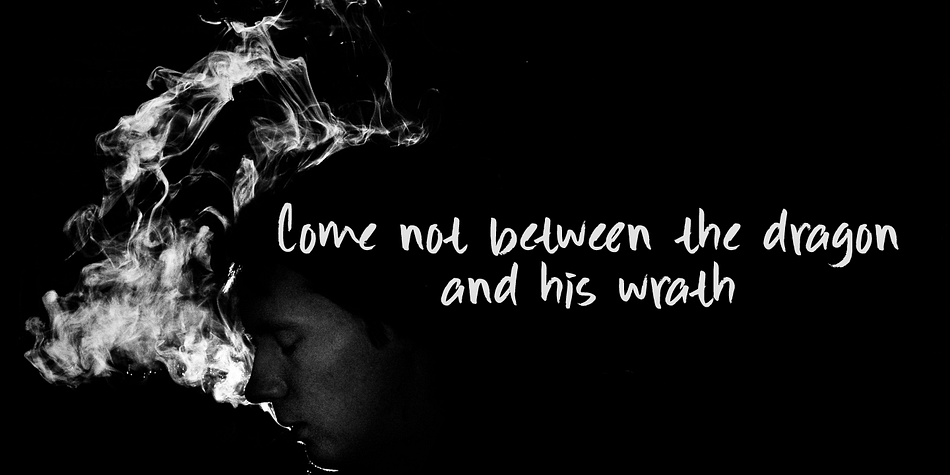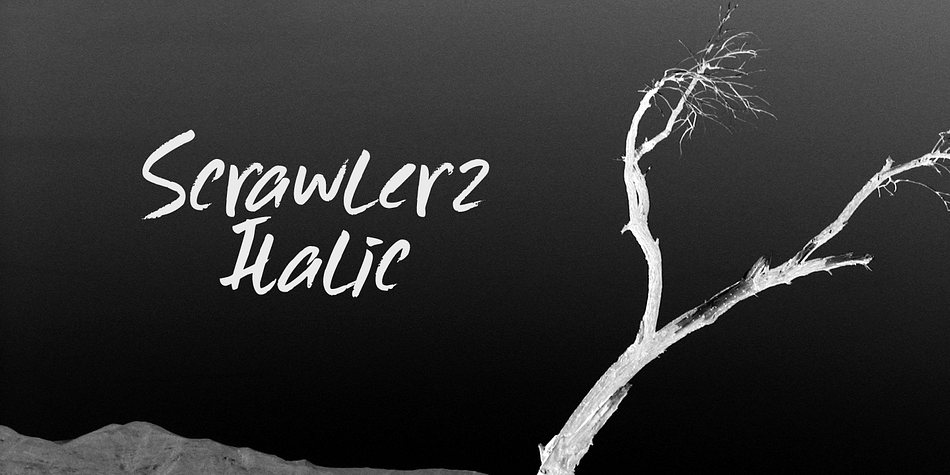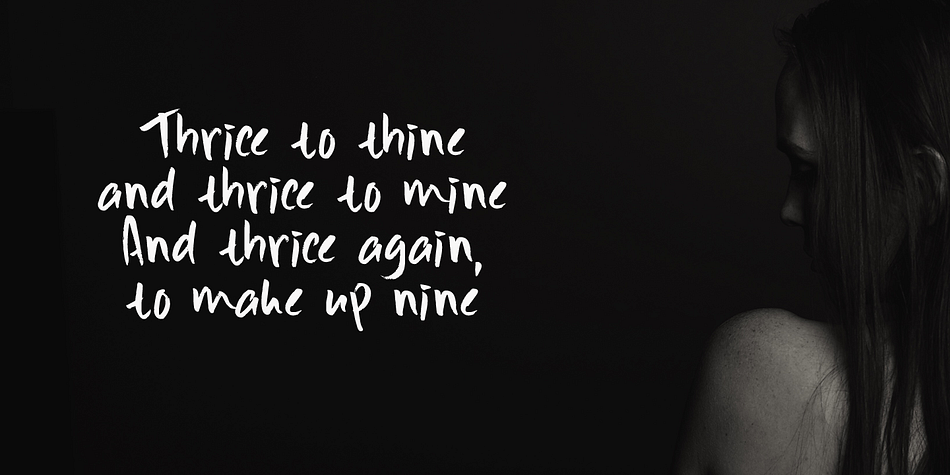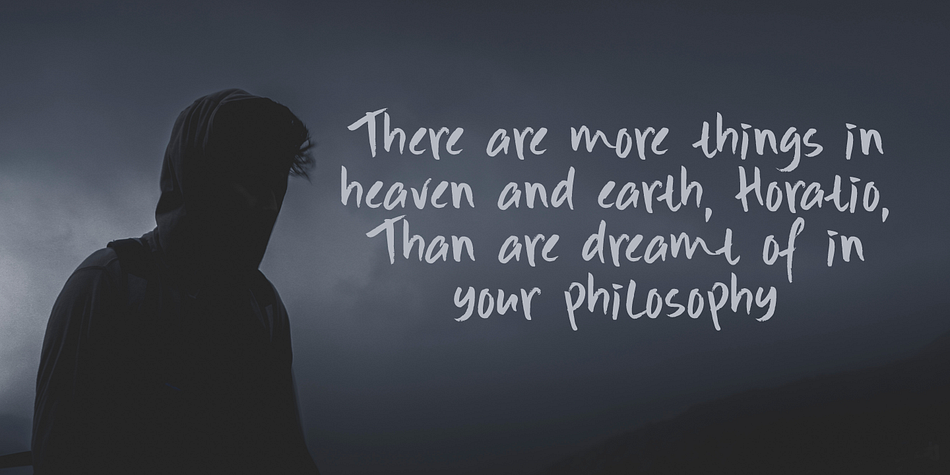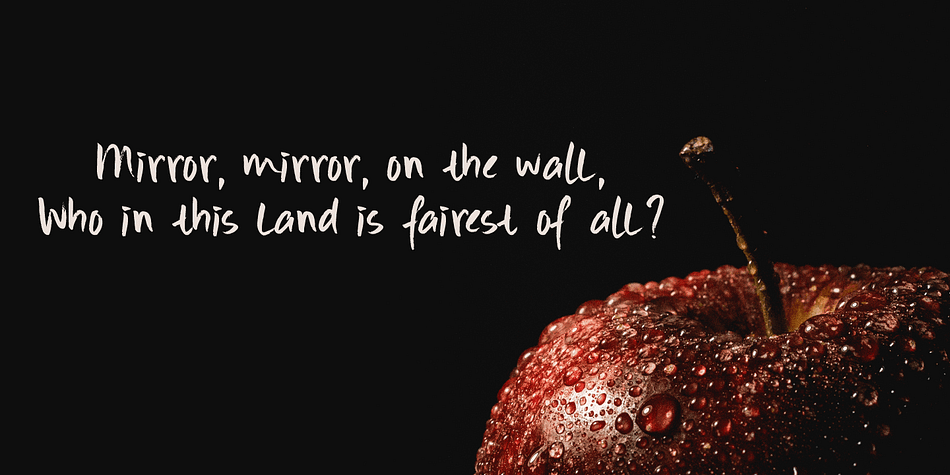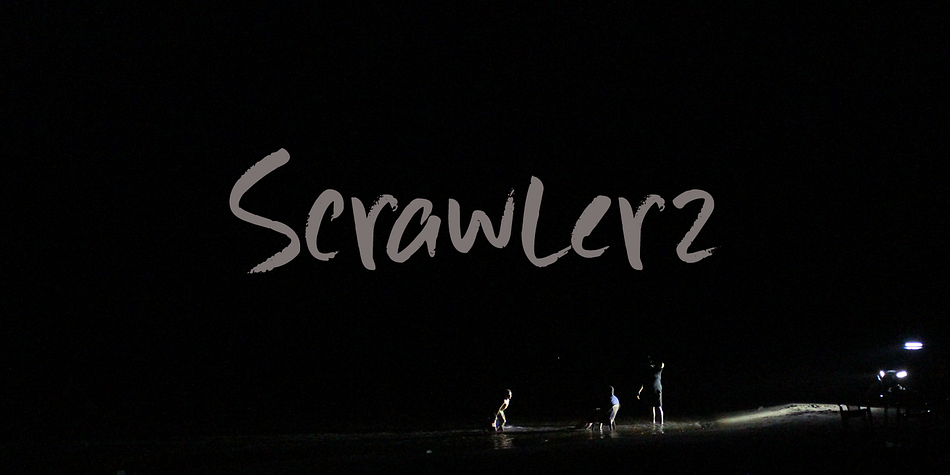
Designed by David Kerkhoff, Scrawlerz is a hand drawn font family. This typeface has two styles and was published by Hanoded.
My teacher used to say my writing looked like ‘hanenpoten’ (“rooster legs”). It is a Dutch expression for a scrawly script. When this script emerged, it had ‘scrawl’ written all over it!
Scrawlerz is a messy script font with a lot of joie de vivre. Enjoy!